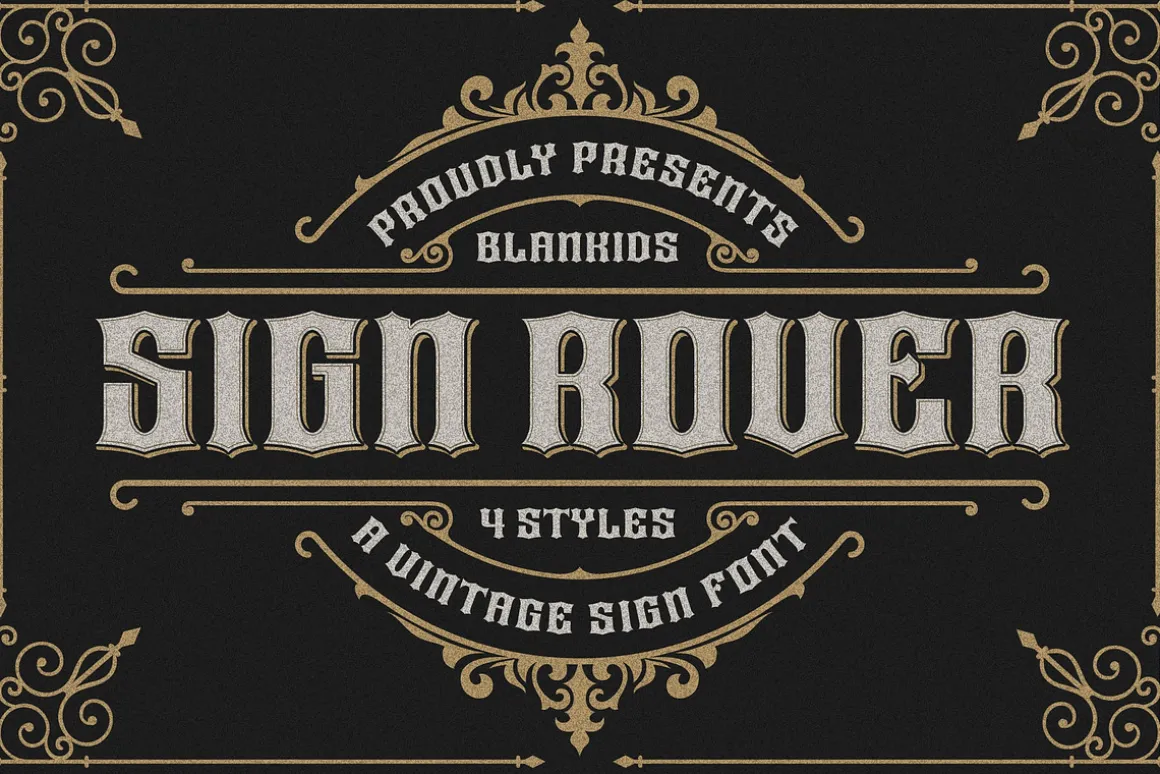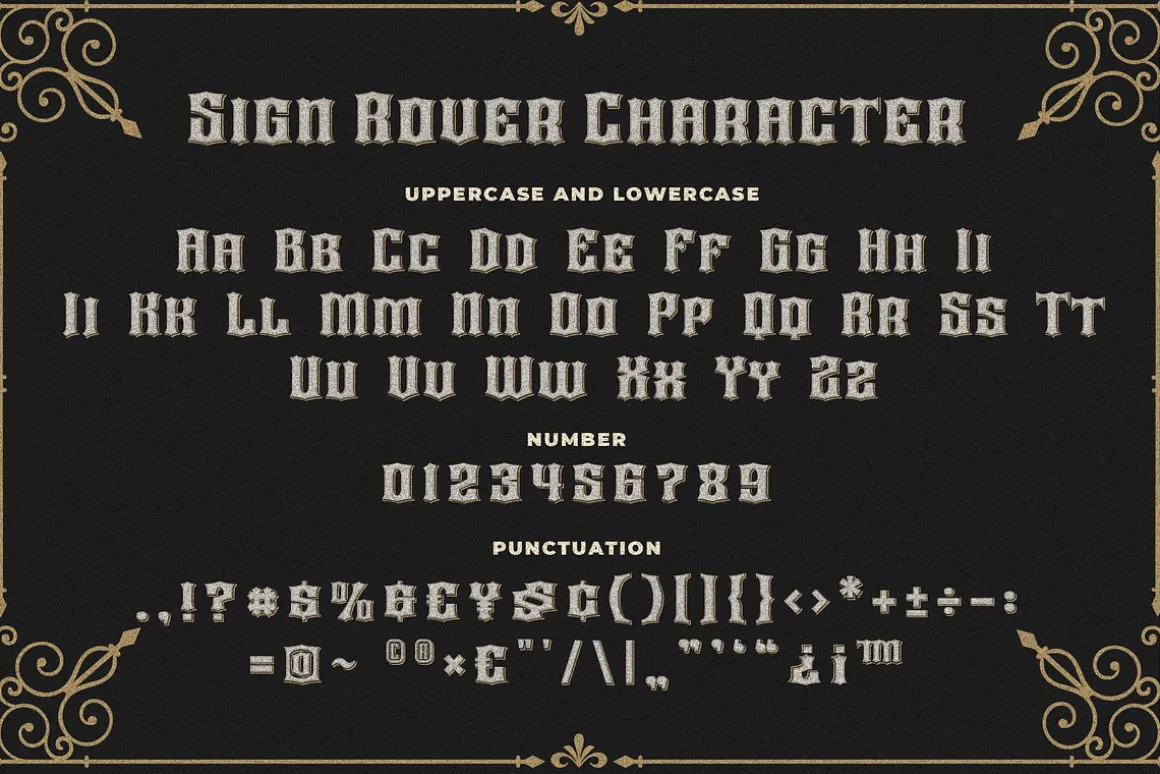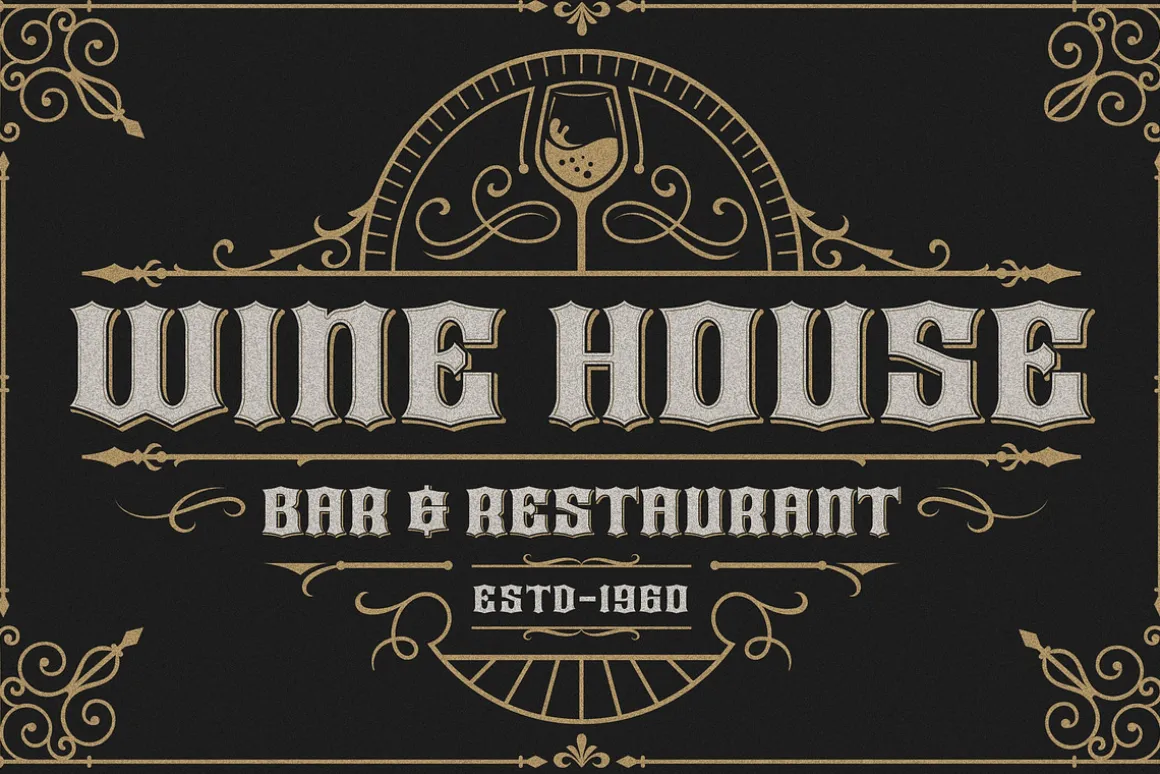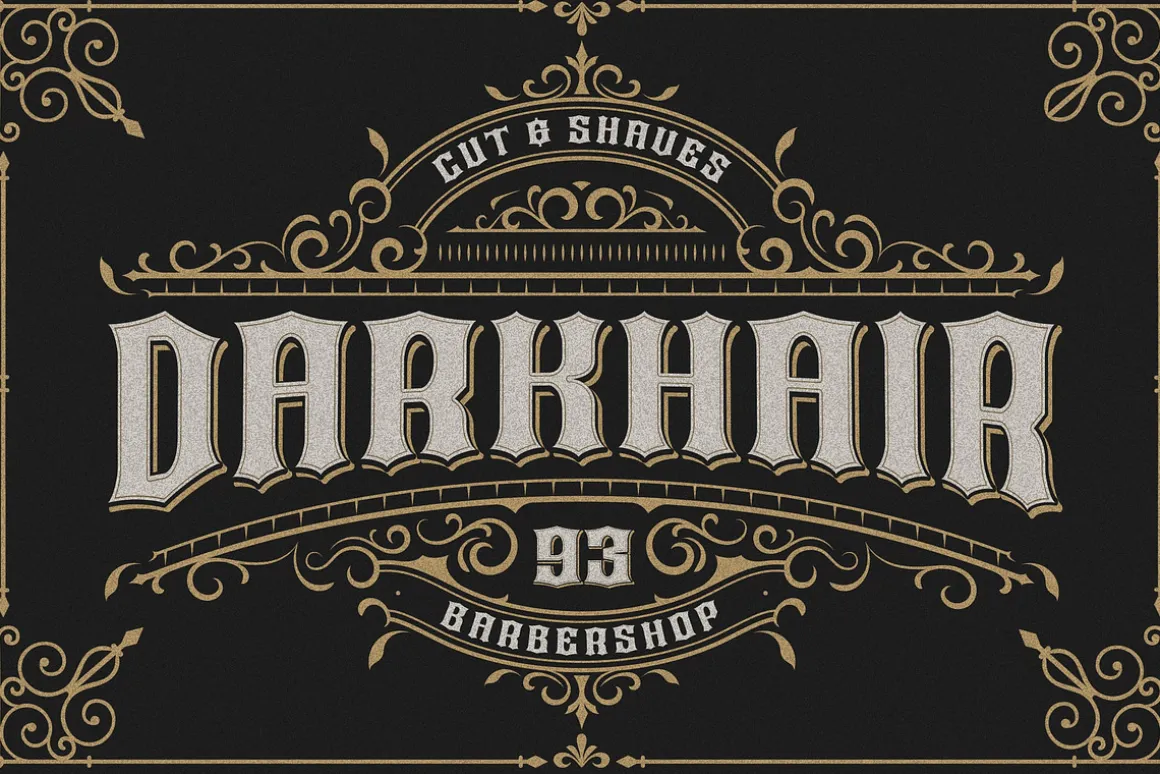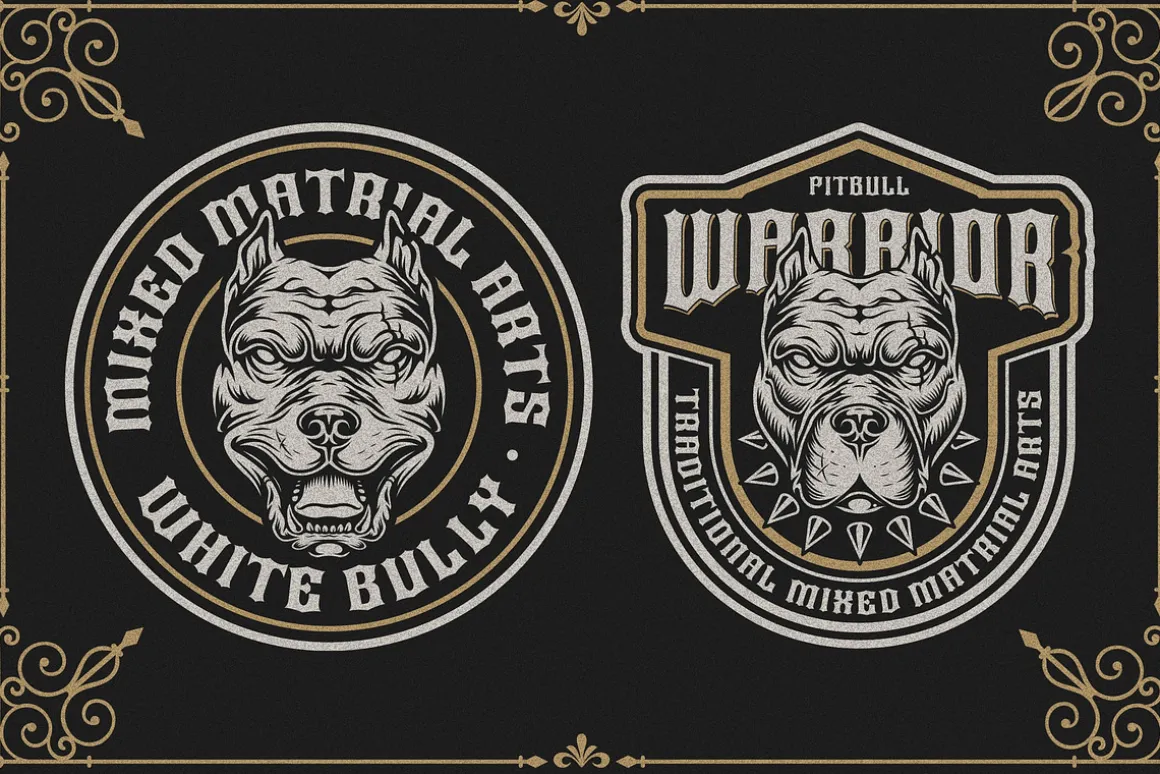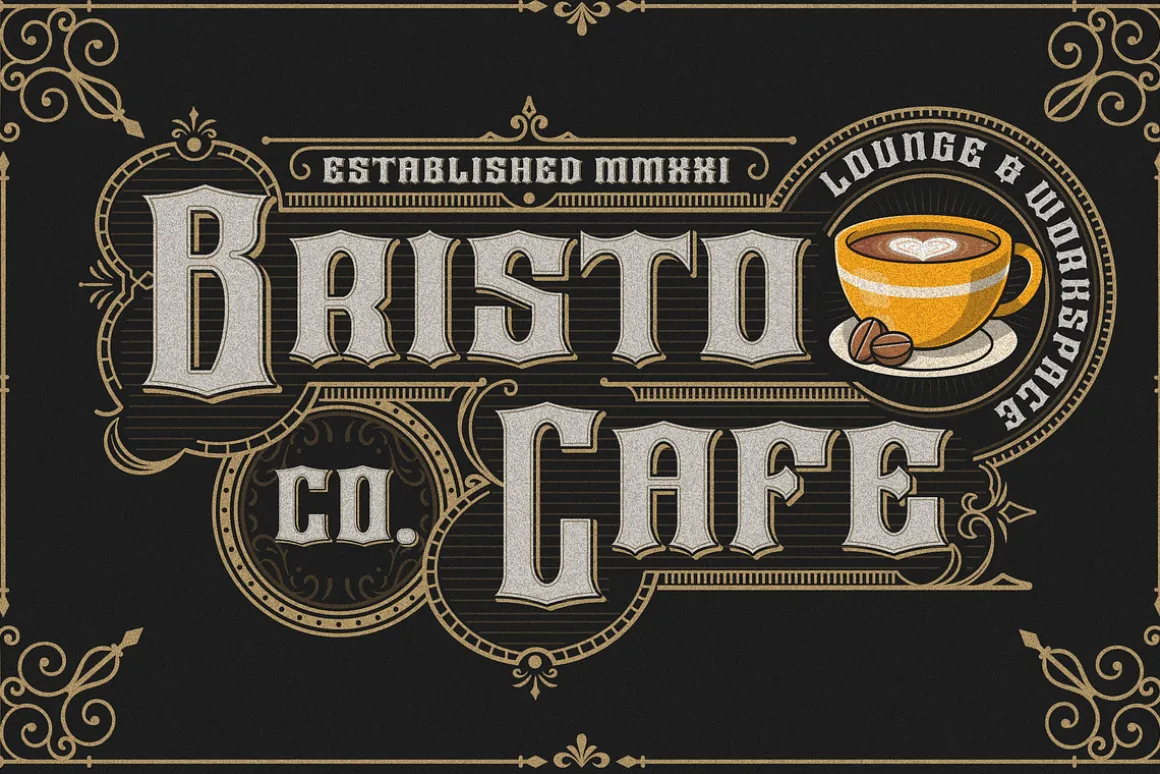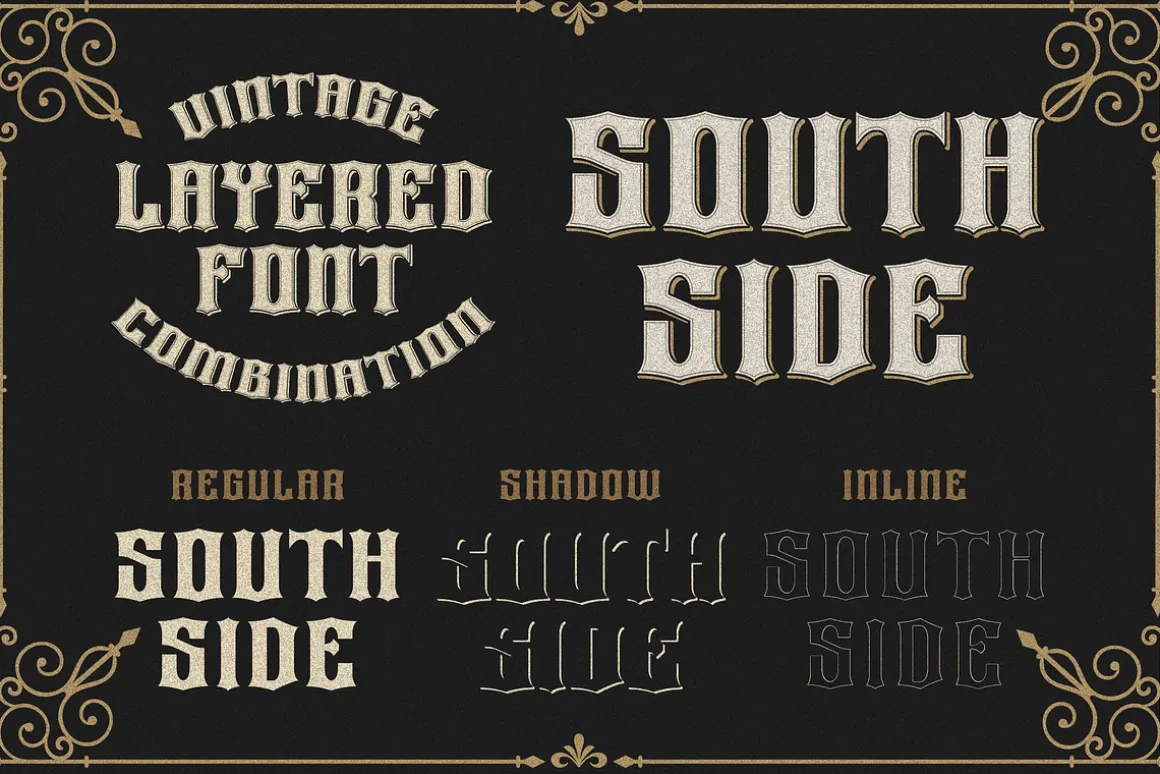
Hello,Are you looking for a vintage layering display font? Do you want of creating Something that stand out and inspire creativity, imagination, and endless fun? Wait no more, we will give you the best choice.
Sign Rover a Vintage Sign Font, Inspiring from old signage typography. This font is perfect for a design that makes it more attractive and playful. made with a very good level of aesthetics making this font suitable for book cover, poster, packging, merchandise, logotype and much more.